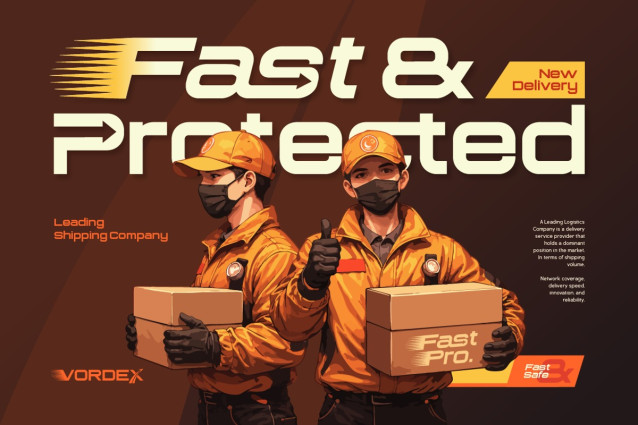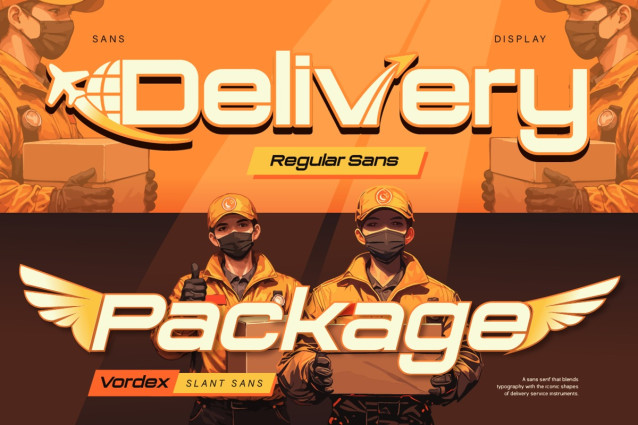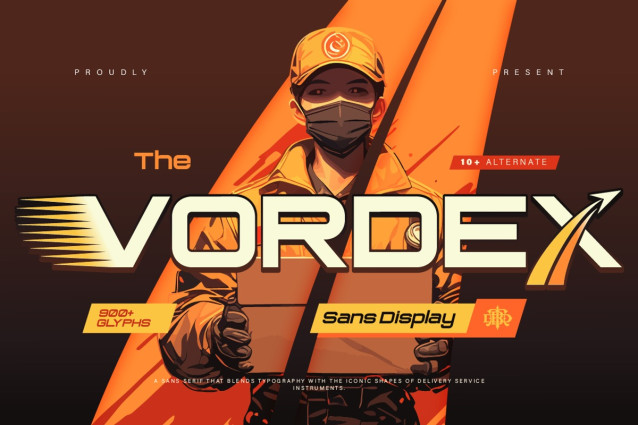
Vordex Font
Vordex Font a bold and modern sans display font inspired by the fast paced world of logistics and delivery. Designed with strong geometric shapes and dynamic cuts, this font brings a sense of speed, efficiency, and reliability into your designs. Perfect for adding motion and energy to your text just like a package moving fast to its destination.